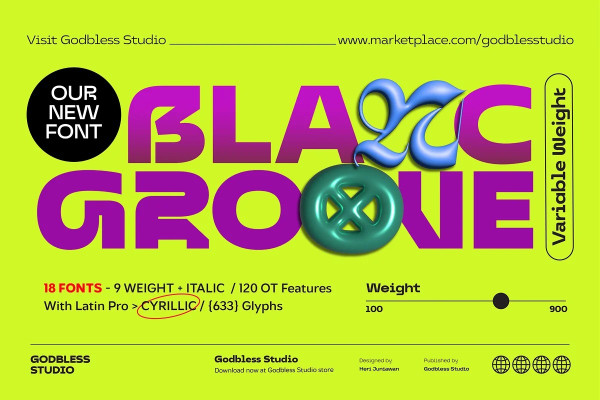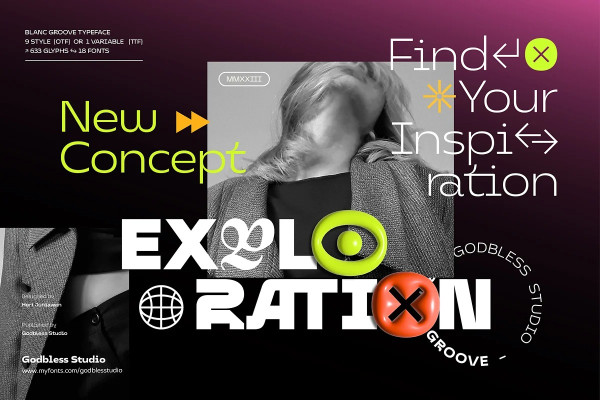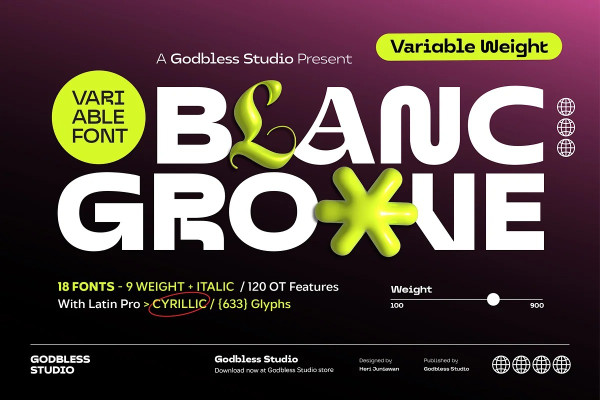
Blanc Groove Font
Blanc Groove Font, a font with a futuristic and experimental concept created with a strong and charismatic character. following the current trend design style.
BLANC GROOVE is made experimentally following a futuristic style recipe with alternate characters made with outstanding alternate and display that makes this font more stylish and varied.
BLANC GROOVE is a variable font that has 18 Font, 9 weights with 2 Variable from thin to black & Italic. also includes alternates that are more varied with variables.
BLANC GROOVE is a versatile font system, designed primarily for display uses with a need of visual impact.